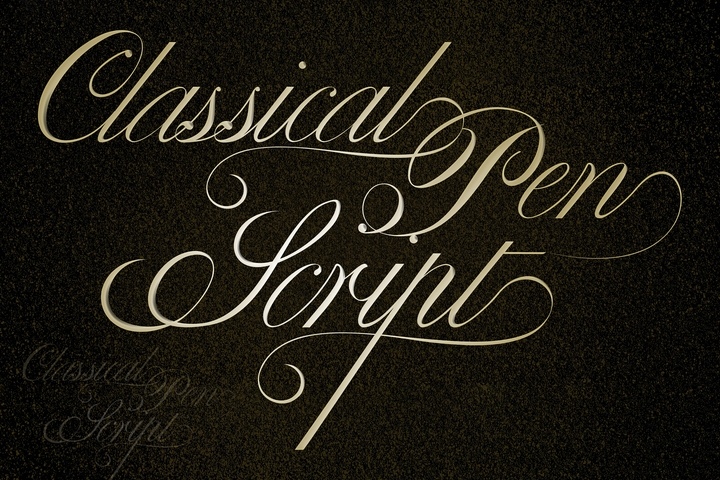
Classical Pen Script Font
Classical Pen Script Font is perfect for formal invitations, historical documents, legal certificates, academic diplomas, luxury brand identity, elegant stationery, vintage-inspired designs, museum exhibitions, classical literature covers, and prestigious award certificates.
Classical Pen Script Font is exciting because it perfectly preserves the distinguished art of traditional penmanship while adapting seamlessly to modern design applications. This font brings timeless sophistication and scholarly elegance to any project, making it ideal for institutions and brands that want to convey heritage, authority, and refined taste. Its authentic pen strokes and classical proportions create an atmosphere of dignity and intellectual prestige.
Classical Pen Script Font family includes regular, medium, and bold weights, along with ornamental capitals, decorative flourishes, and period-appropriate alternates, providing designers with comprehensive tools for creating authentic historical and formal typography.
This distinguished script typeface combines centuries-old calligraphic traditions with contemporary digital craftsmanship, making Classical Pen Script Font Free Download an exceptional choice for projects requiring historical accuracy and formal elegance. The font's meticulously crafted letterforms feature authentic ink flow patterns and traditional stroke variations that honor the masters of classical penmanship.
Whether you're designing academic publications, legal documents, or luxury heritage branding, Classical Pen Script Font delivers unparalleled authenticity and professional distinction. The font performs beautifully across all media, from formal printed documents to digital presentations where classical elegance is paramount.
Design professionals choose Classical Pen Script Font for its ability to instantly establish credibility and scholarly authority while maintaining excellent readability in formal contexts. The font's traditional character makes it particularly suitable for institutions, law firms, universities, and luxury brands with rich heritage.
Each letterform reflects the precise techniques of master calligraphers, featuring proper pen angle consistency and authentic pressure variations that create natural rhythm and flow throughout extended text passages.